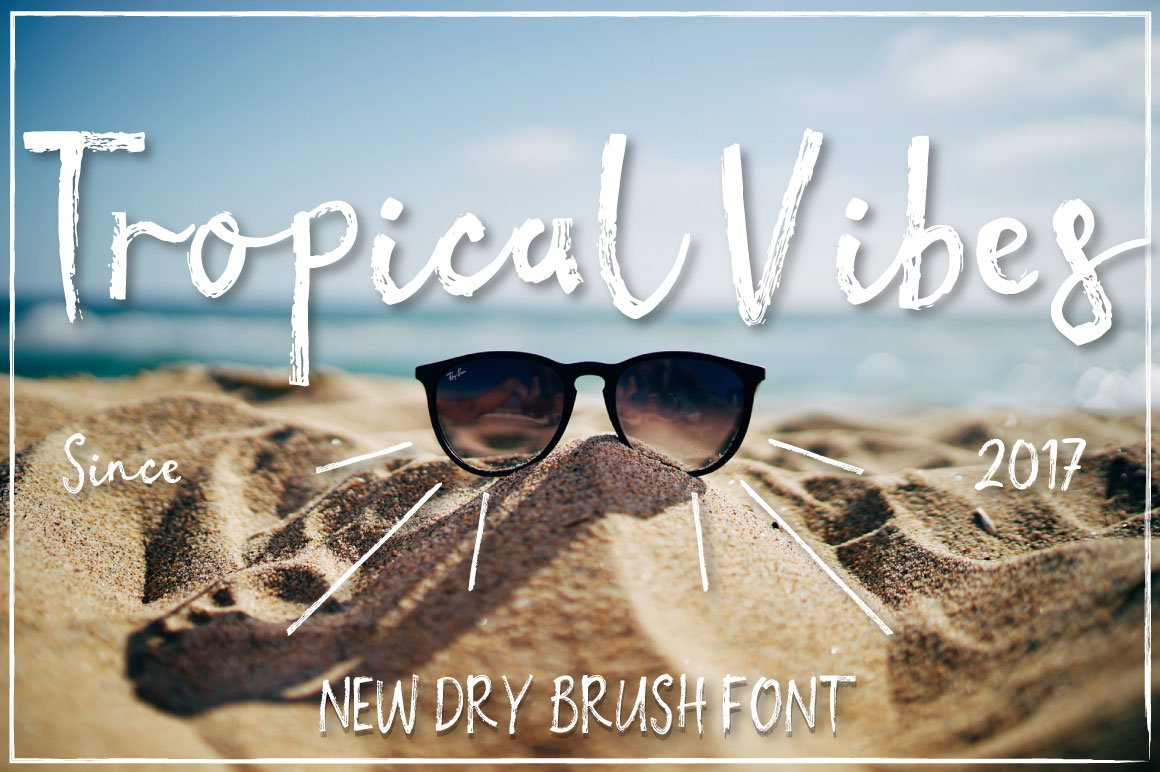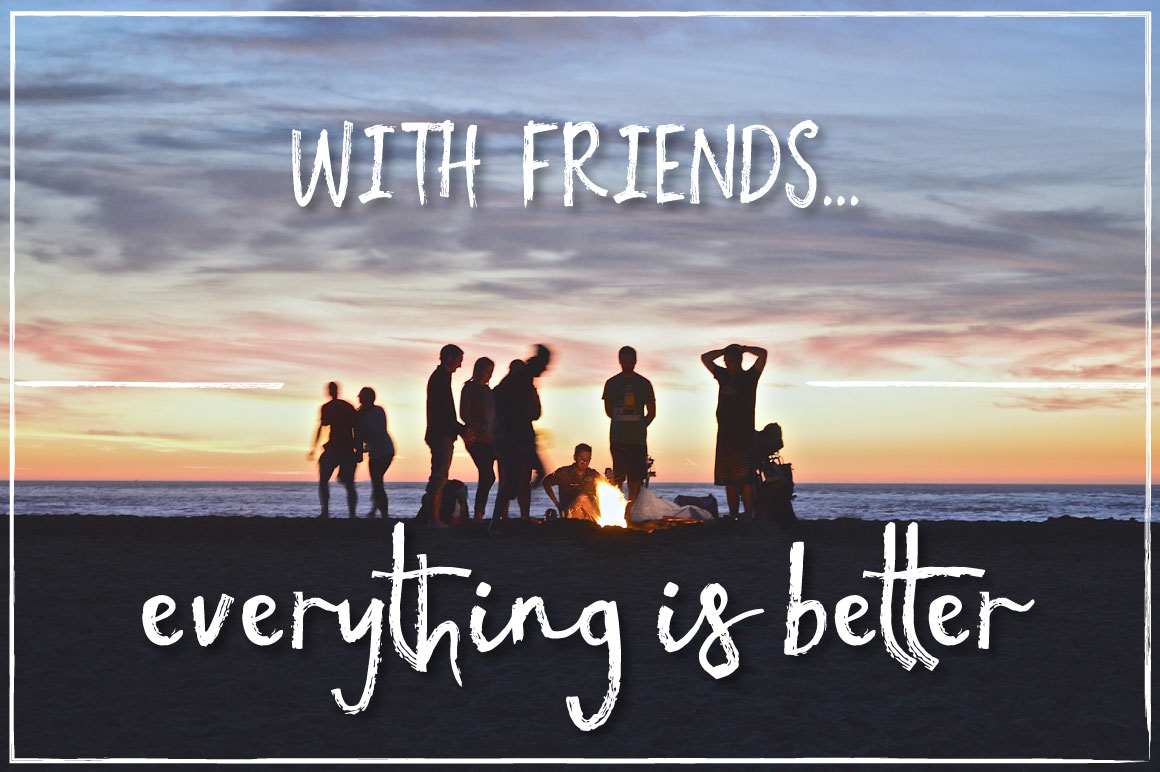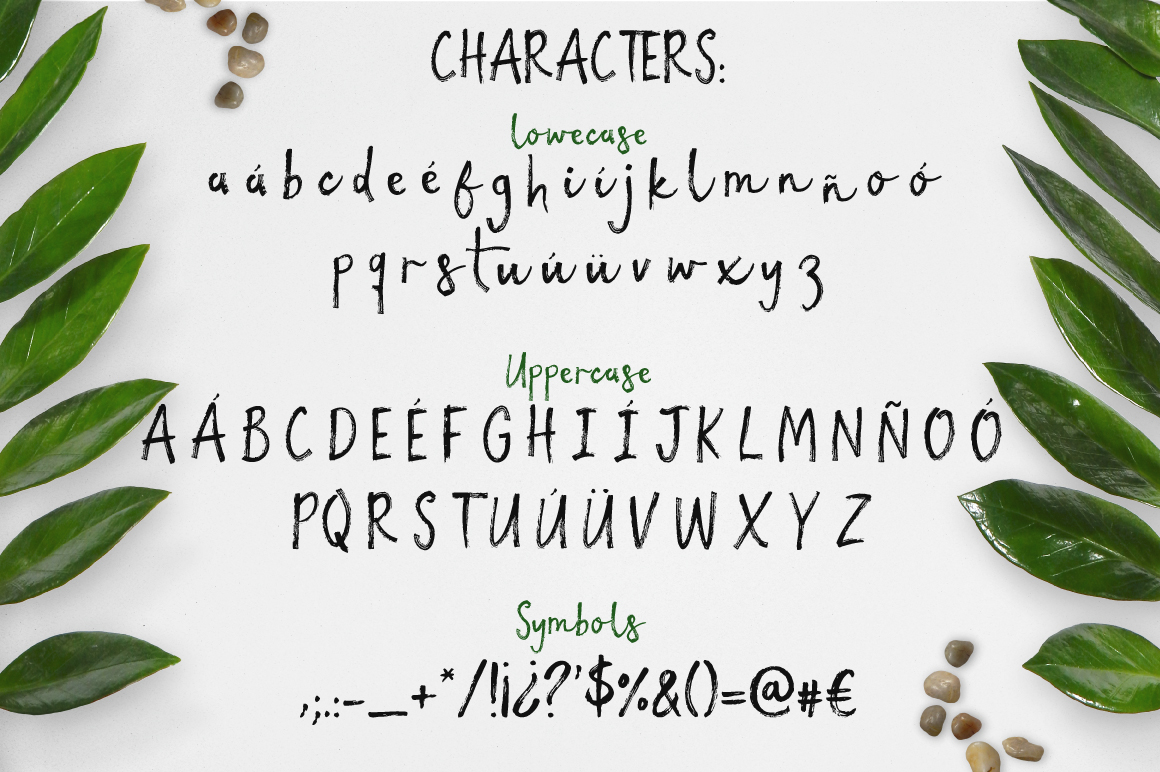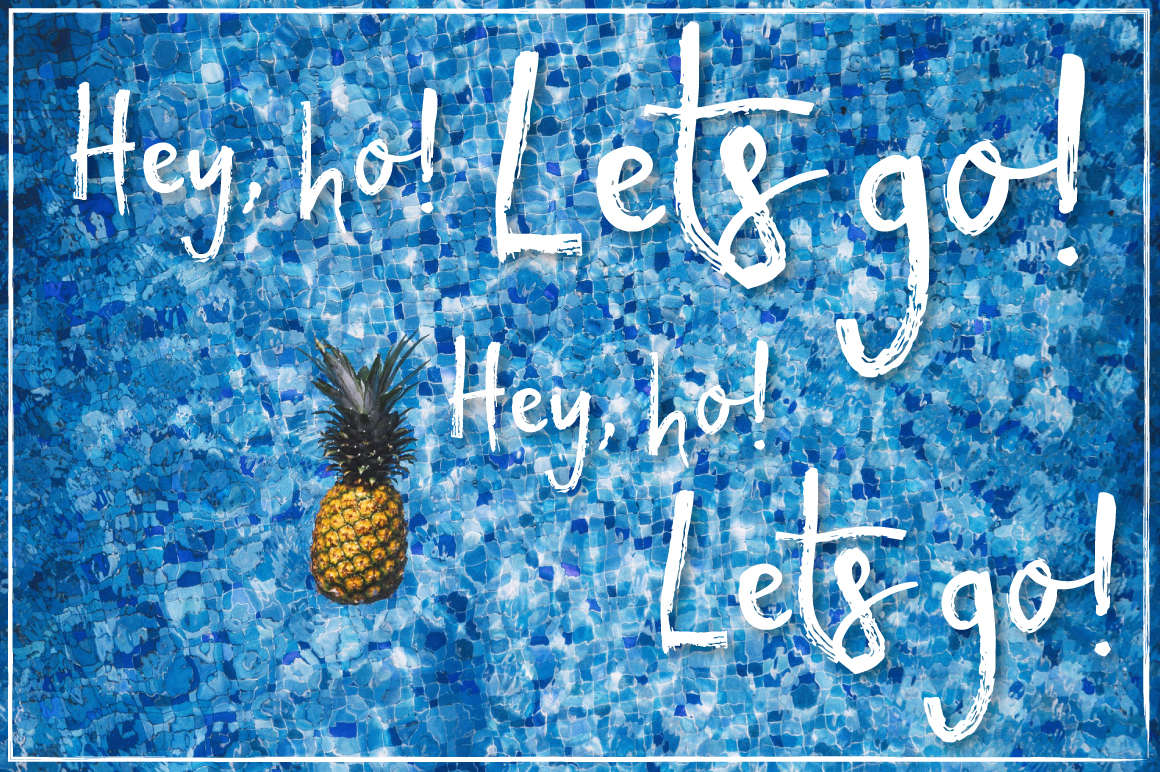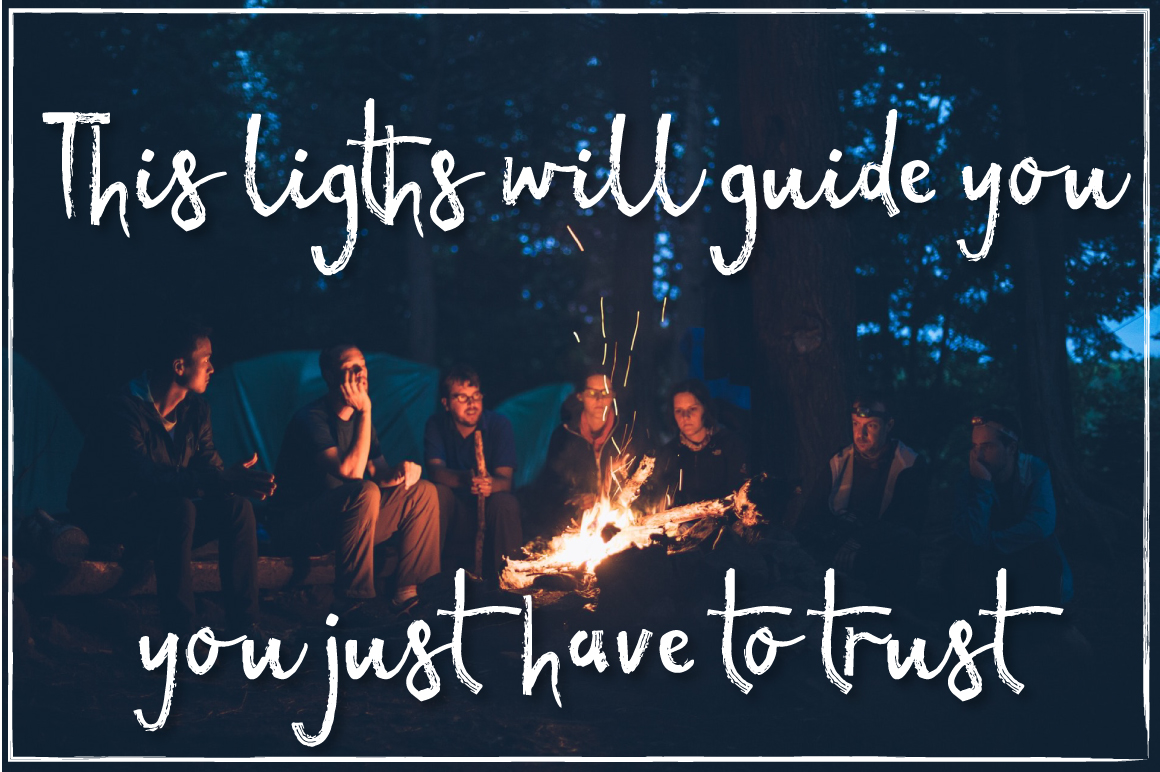
Tropical Vibes Font
About Tropical Vibes Font
Tropical Vibes is a feminine dry brush font. Painted from scratch by hand, it’s an totally awesome font that can help you create amazing invitation and help with branding.